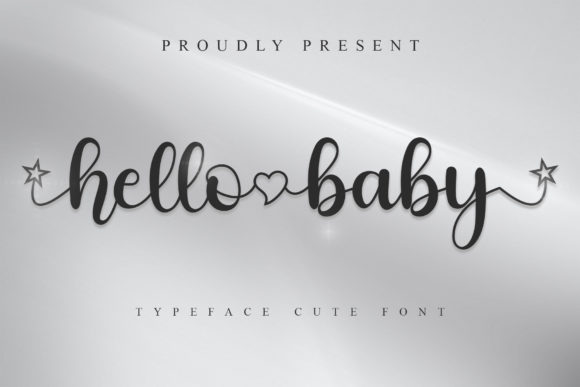
About Hello Baby Font
Hello Baby is an elegant and luxurious handwritten font that exudes sophistication and charm. With its refined letterforms and delicate strokes, this font adds a touch of elegance to your designs. Whether you’re creating invitations, branding materials, social media graphics, or any other project, Hello Baby elevates the visual appeal of your work.
The versatility of Hello Baby allows it to adapt to various design styles and themes. Its timeless and luxurious look makes it suitable for both modern and classic designs. Whether you’re going for a minimalist and contemporary aesthetic or a vintage-inspired look, Hello Baby enhances the overall elegance and appeal of your design.
One of the standout features of Hello Baby is its extensive set of glyphs and swashes. Being PUA encoded, you can easily access and utilize the wide range of alternates, ligatures, and decorative elements to customize and embellish your text. This opens up endless possibilities for creative typography and allows you to add intricate details and flourishes to your designs.
The luxurious and sophisticated appearance of Hello Baby makes it perfect for high-end branding projects. Whether it’s for luxury fashion, beauty, or lifestyle brands, this font adds a touch of elegance and exclusivity to your brand identity. It creates a sense of refinement and sophistication, helping your brand stand out and make a lasting impression.
Additionally, Hello Baby is ideal for wedding invitations and stationery designs. Its elegant and delicate style perfectly complements the romantic and joyful atmosphere of weddings. Whether you’re designing save-the-date cards, wedding invitations, or thank you cards, Hello Baby adds a luxurious and personalized touch to these special moments.
Furthermore, Hello Baby can be used for social media graphics, blog headers, and various digital content. Its versatile style allows you to create visually stunning and eye-catching designs that captivate your audience. Whether you’re designing Instagram posts, Pinterest graphics, or blog banners, Hello Baby brings a touch of luxury and sophistication to your online presence.
In conclusion, Hello Baby is an elegant and luxurious handwritten font that adds a touch of sophistication and charm to your designs. With its versatile style, extensive glyph set, and PUA encoding, this font allows you to create spectacular and personalized designs. Fall in love with the timeless beauty of Hello Baby and let it elevate your creative projects to new heights.